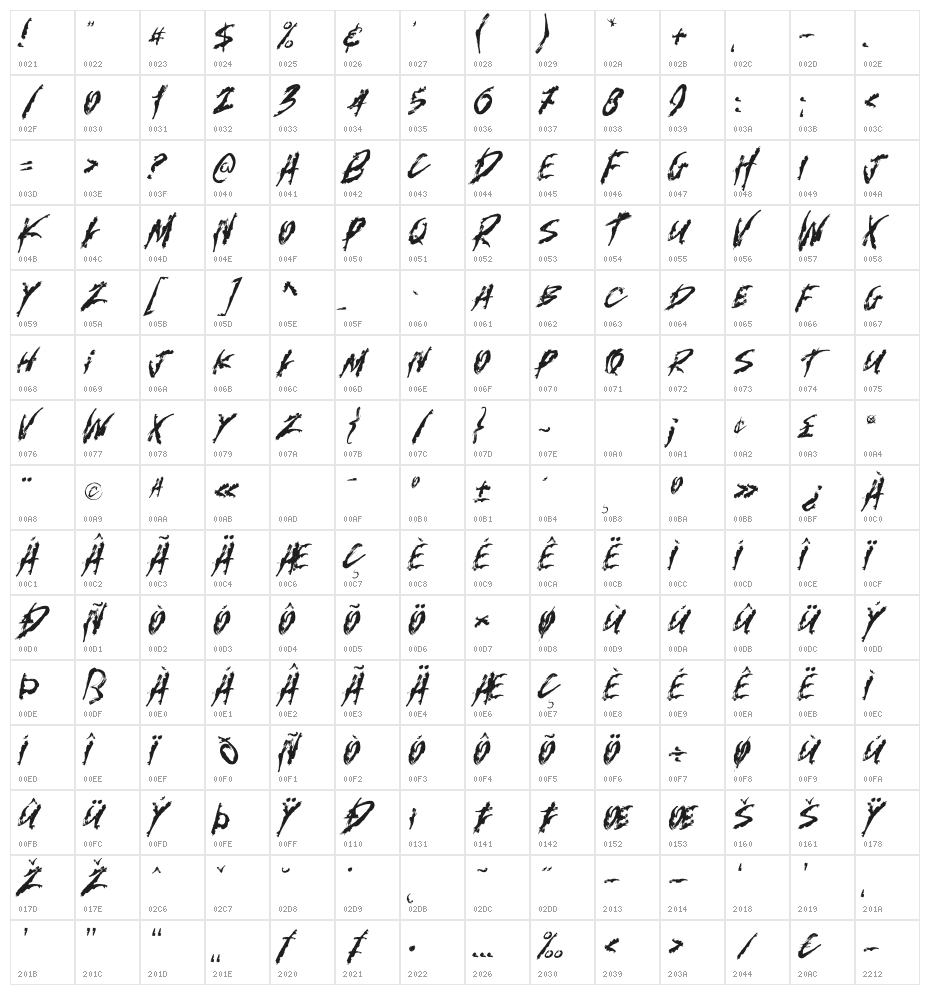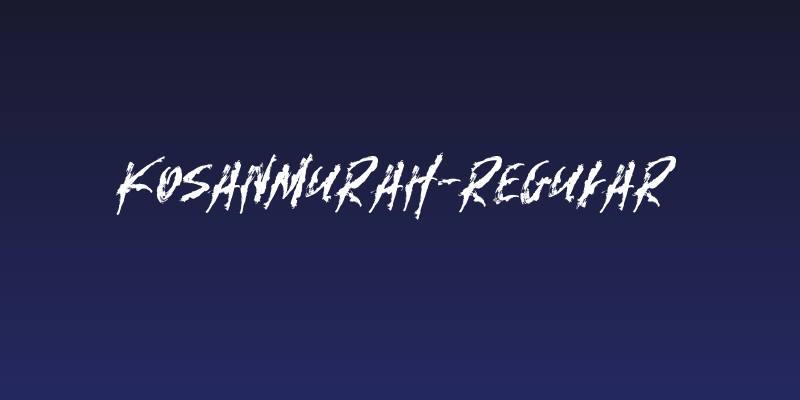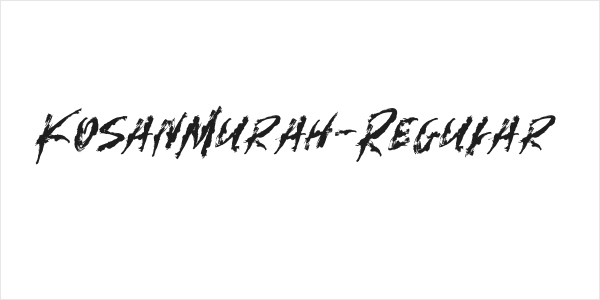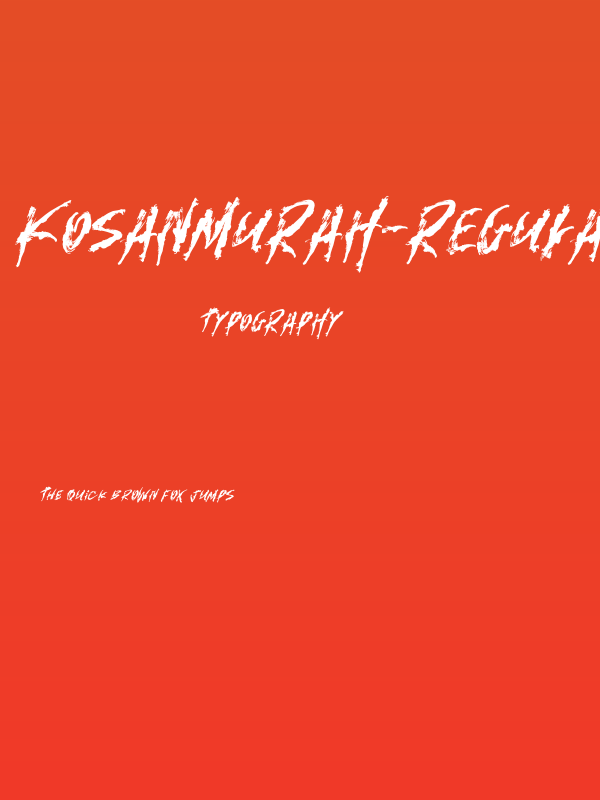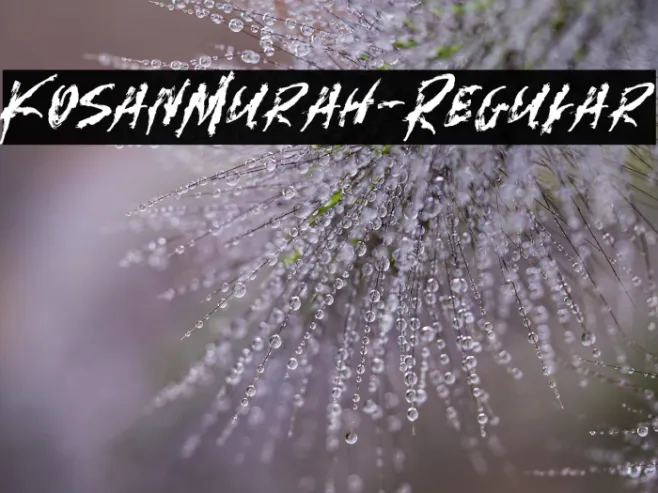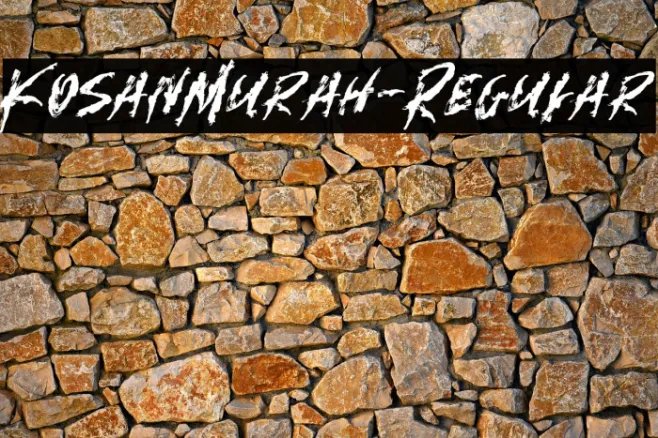
KosanMurah-Regular Font
KosanMurah-Regular Description
This font exhibits a bold, expressive style with a brush-like texture that gives it a dynamic and energetic appearance. The strokes are irregular and rough, creating a sense of movement and spontaneity. Each character is uniquely crafted, with varying thicknesses and angles, adding to its artistic flair. The uppercase and lowercase letters maintain a consistent style, while the numbers and special characters integrate seamlessly, enhancing the overall cohesive look. This font is ideal for projects that require a strong visual impact and a touch of creativity.
| Proposed Projects | Ideal for posters, album covers, branding, and creative advertising. |